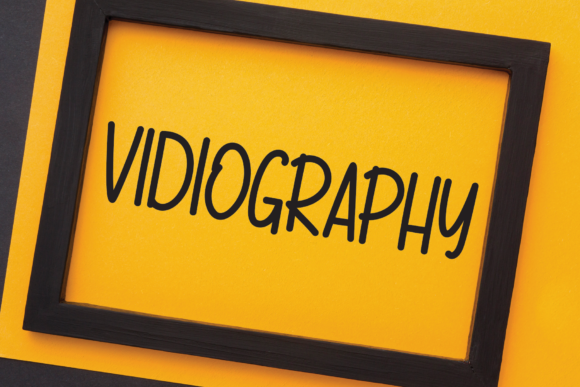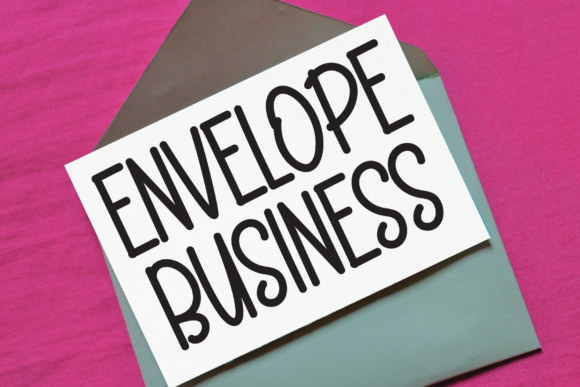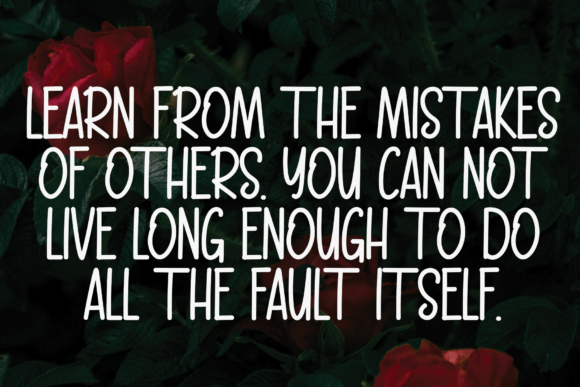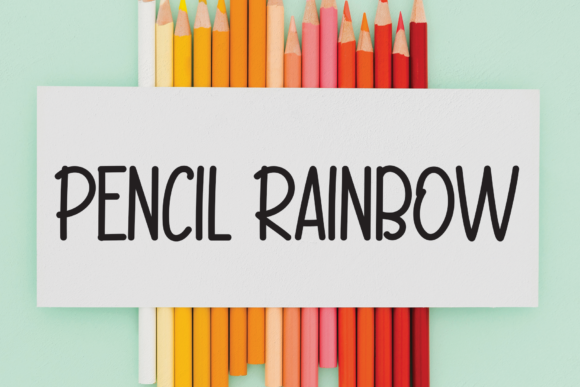
About Home Book Font
“Home Book” is a delightful and approachable handwritten font that radiates a sense of warmth and friendliness. With its charming and inviting style, this font is a perfect choice for a wide range of design projects, adding a touch of playfulness and romance that captivates the audience.
The whimsical and friendly nature of “Home Book” makes it an ideal companion for various design ideas. Imagine using it to create welcoming and heartwarming designs for home-related projects, such as cozy home decor, inviting housewarming invitations, or even recipe books filled with cherished family recipes.
The font’s handwritten quality lends an authentic and personal touch to your designs, evoking a sense of connection and familiarity. Whether you’re designing personalized greeting cards, heartwarming quotes, or delightful social media posts, “Home Book” infuses your creations with a genuine and relatable feel.
The fun and romantic touch of “Home Book” is particularly well-suited for projects that celebrate love, relationships, and togetherness. Use it to craft heartfelt wedding invitations, charming love notes, or captivating engagement announcements that reflect the joy and beauty of special moments.
The versatility of “Home Book” shines through in its ability to adapt to different design contexts. Its friendly and approachable demeanor makes it a great fit for branding, logos, packaging, and beyond. By incorporating this font into your designs, you can create a consistent and appealing visual identity that resonates with your target audience.
Whether you’re aiming for a casual and lighthearted vibe or a more sentimental and nostalgic atmosphere, “Home Book” offers the flexibility to bring your creative vision to life. Its easygoing style and romantic undertones make it a font that can effortlessly convey a range of emotions, helping you establish a strong and meaningful connection with your audience.
As you explore the possibilities of “Home Book,” you’ll discover its ability to add a touch of whimsy and romance to your projects. The font’s sweet and friendly demeanor creates a sense of comfort and familiarity, making it an excellent choice for designs that aim to evoke positive emotions and create a memorable impression.
Incorporating “Home Book” into your design toolkit allows you to infuse your creations with the charm and personality that this font embodies. Its playful and romantic touch can turn ordinary designs into extraordinary expressions of creativity, making your projects stand out and leave a lasting impact on anyone who encounters them.